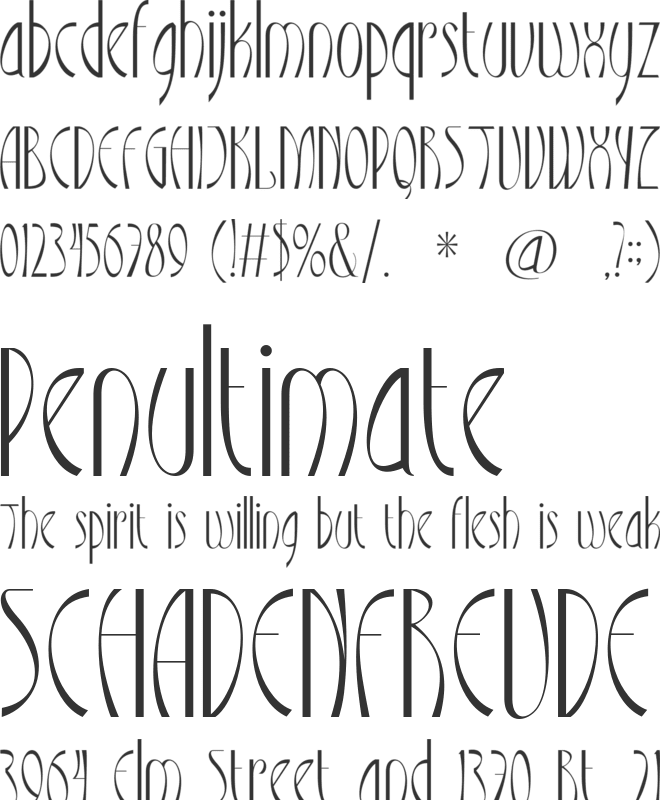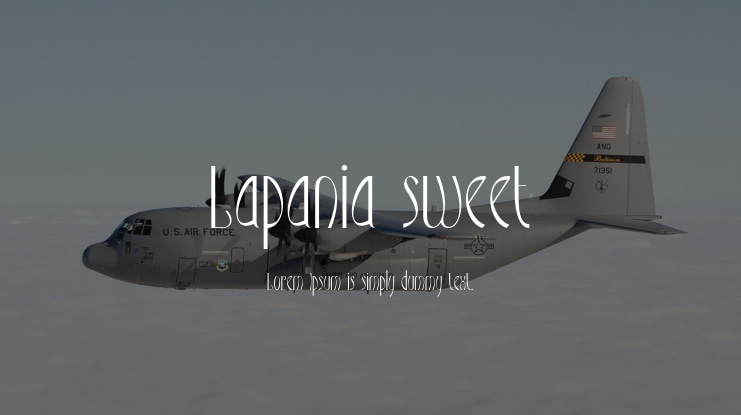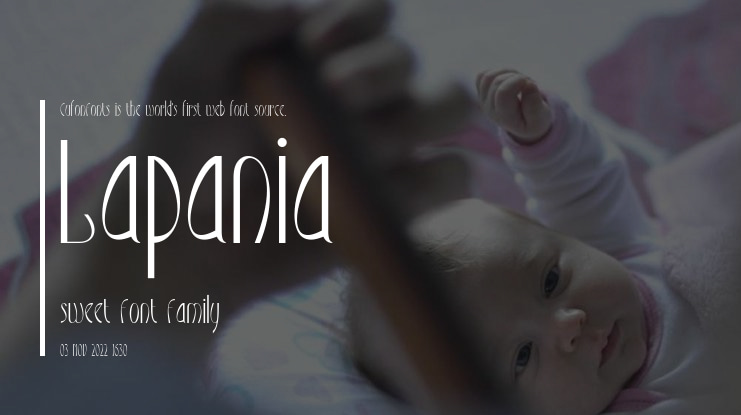
Lapania sweet Font
Meet the Lapania Sweet Typeface - a modern sans serif font that exudes the essence of bohemian chic. With meticulous attention to detail, Lapania Sweet brings a dynamic and graceful charm to your designs. Please note that this font demo is for personal use only and not authorized for commercial purposes. Donations are greatly appreciated.